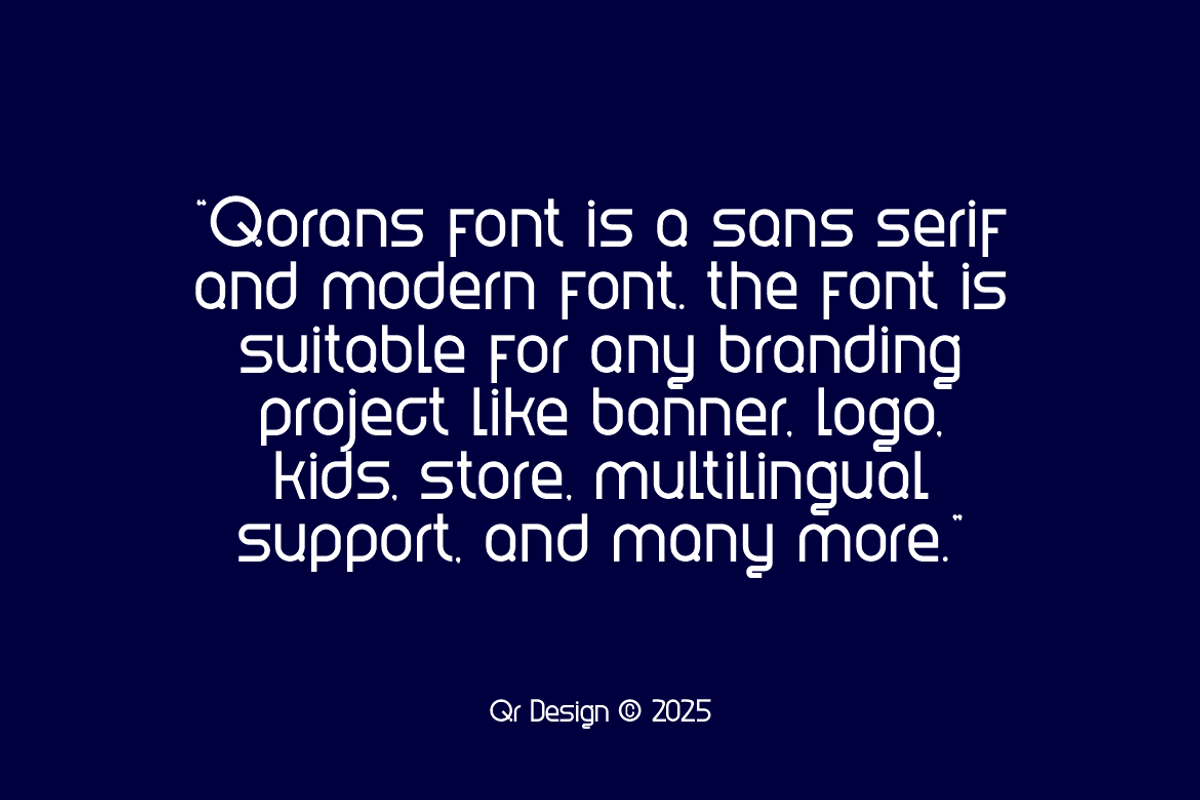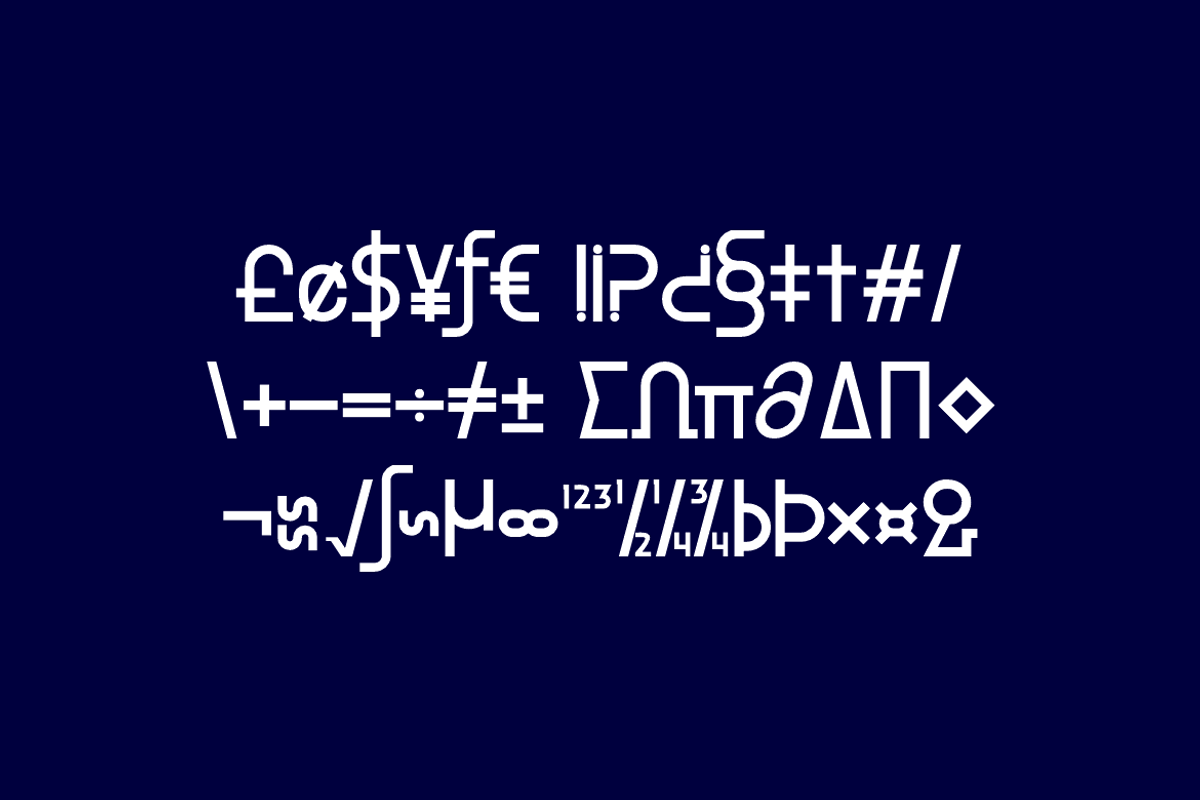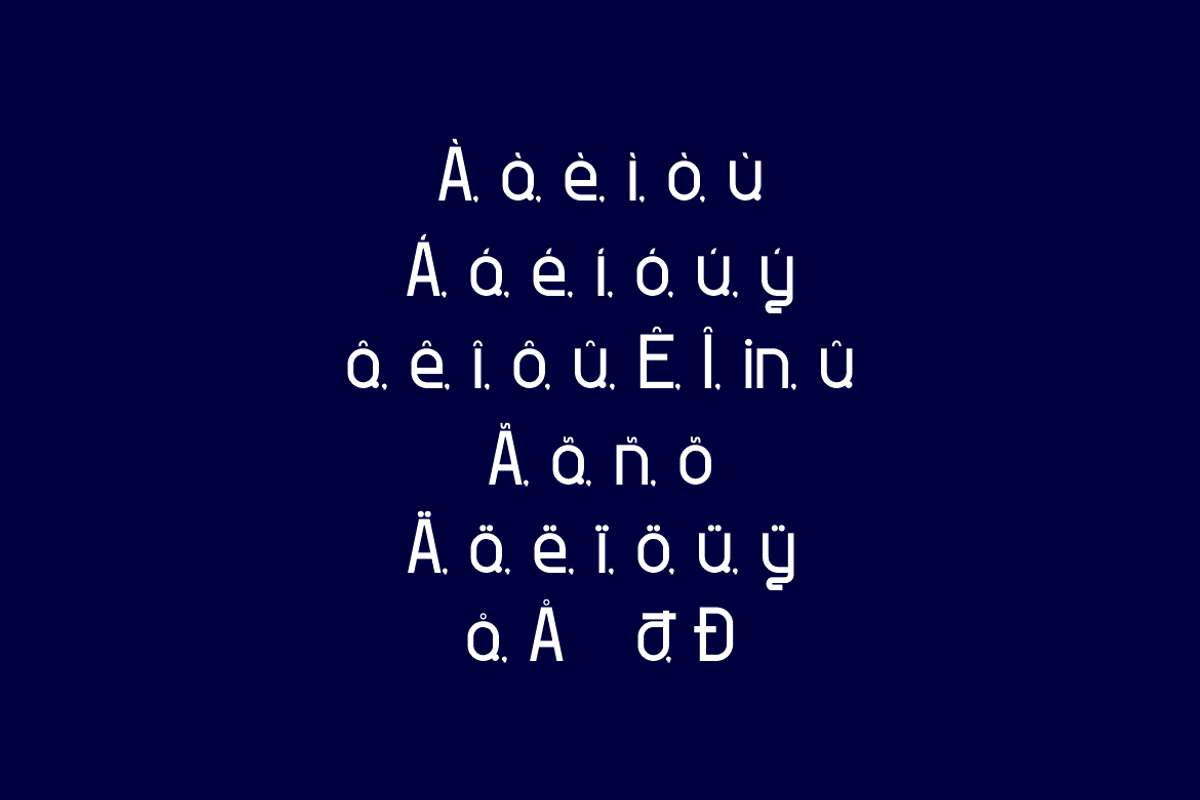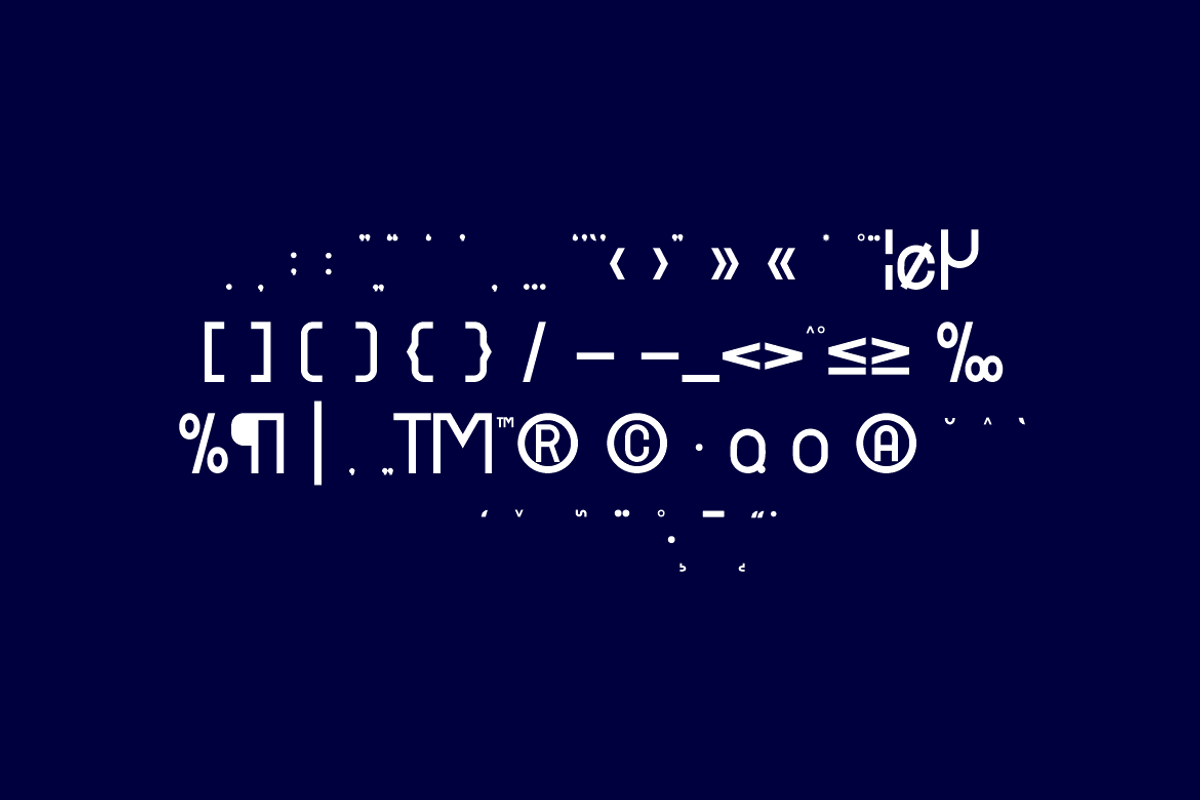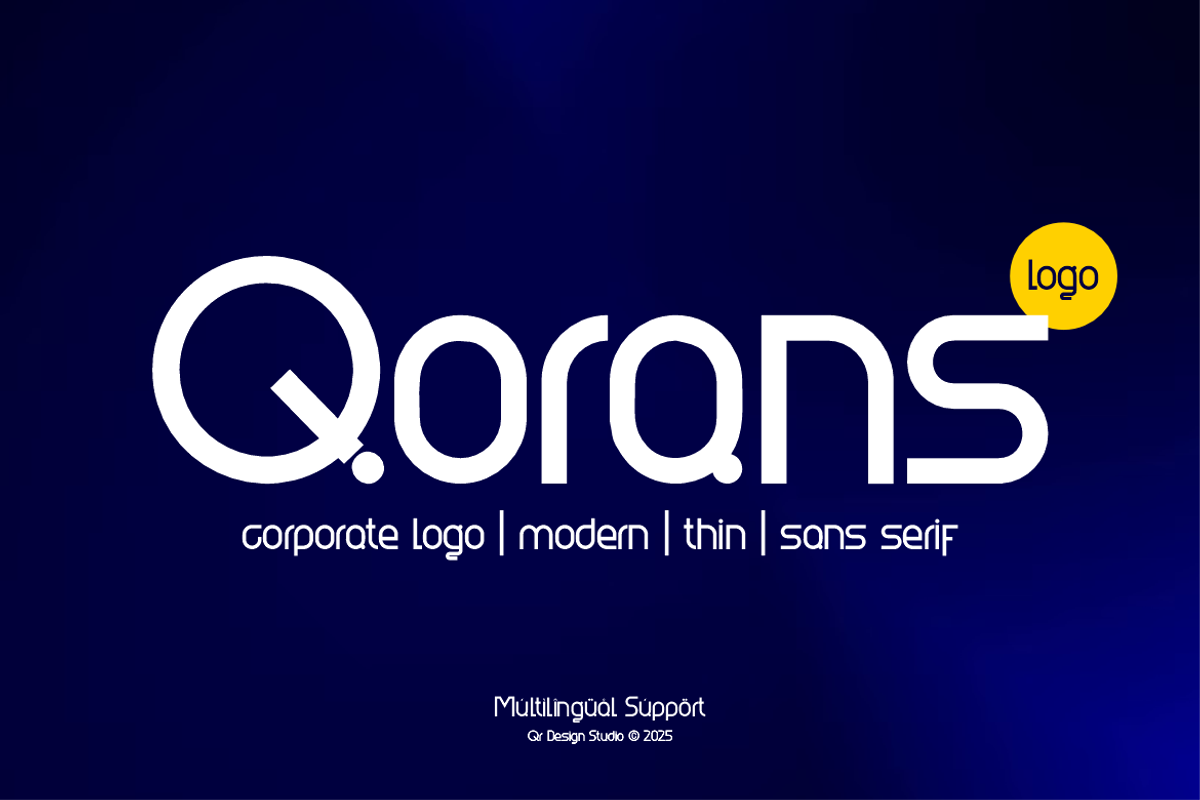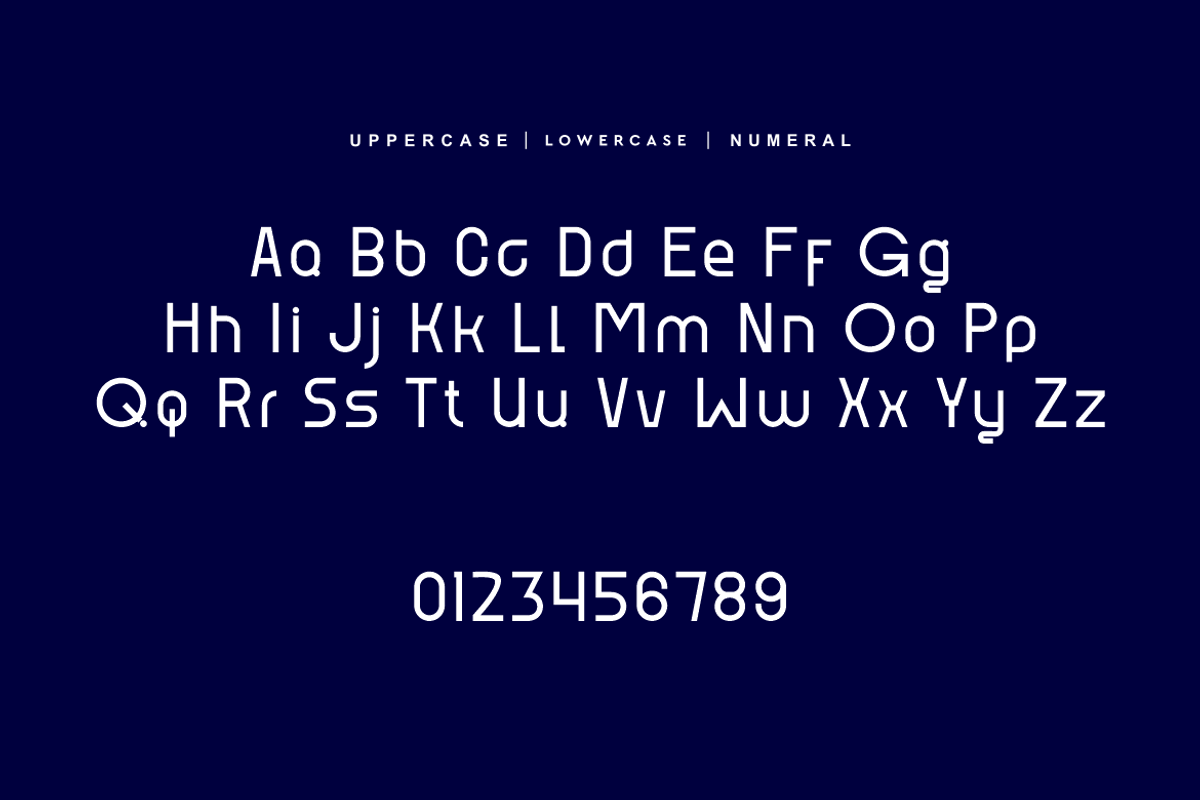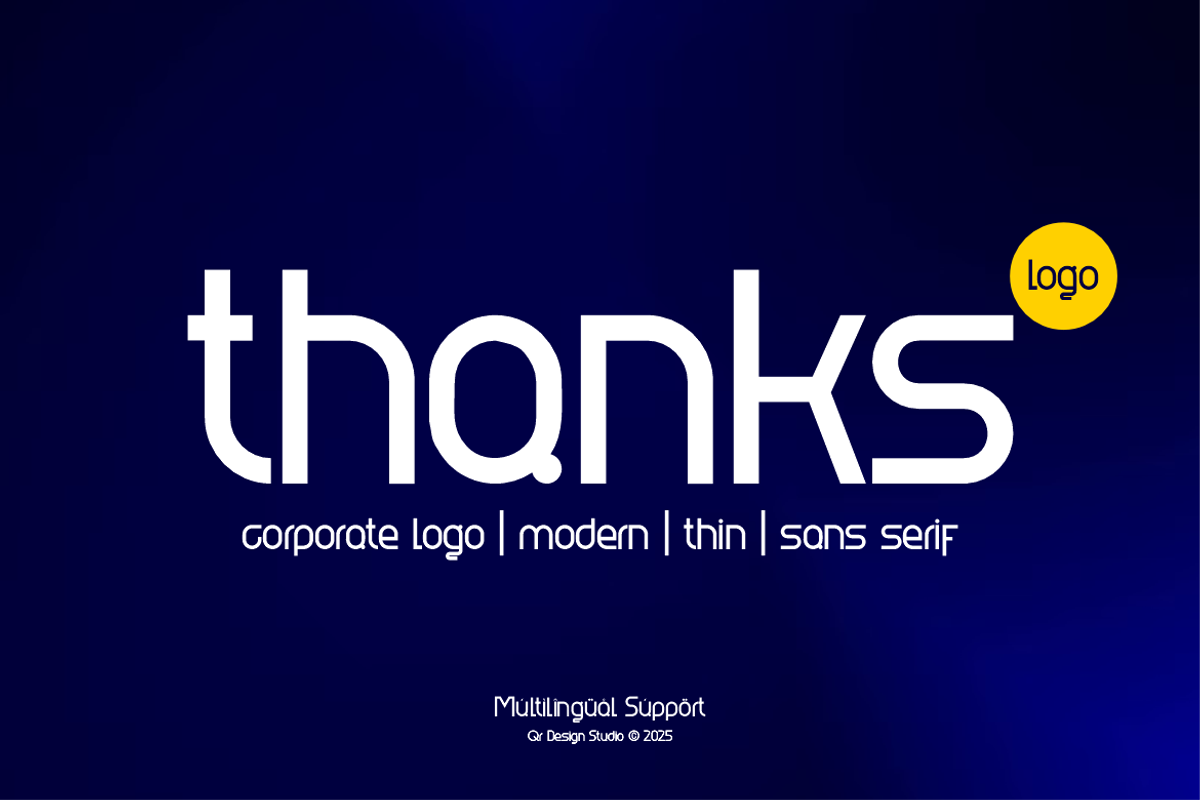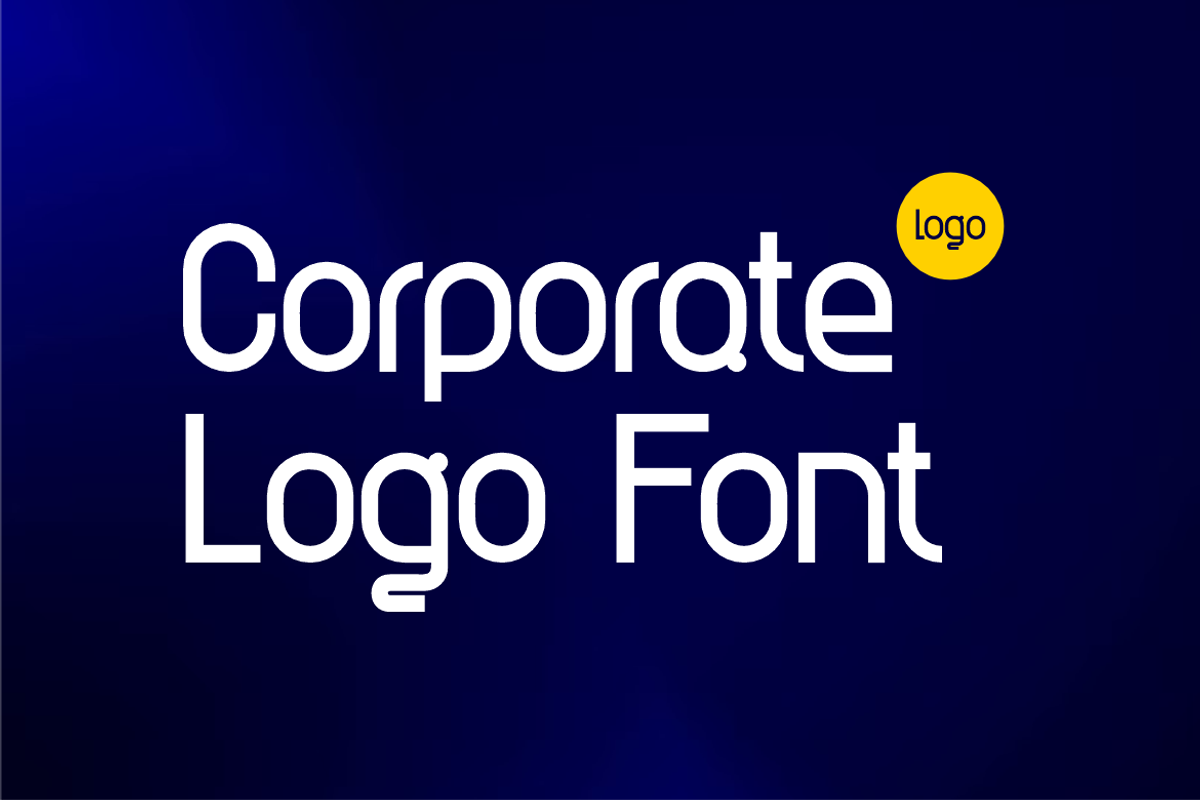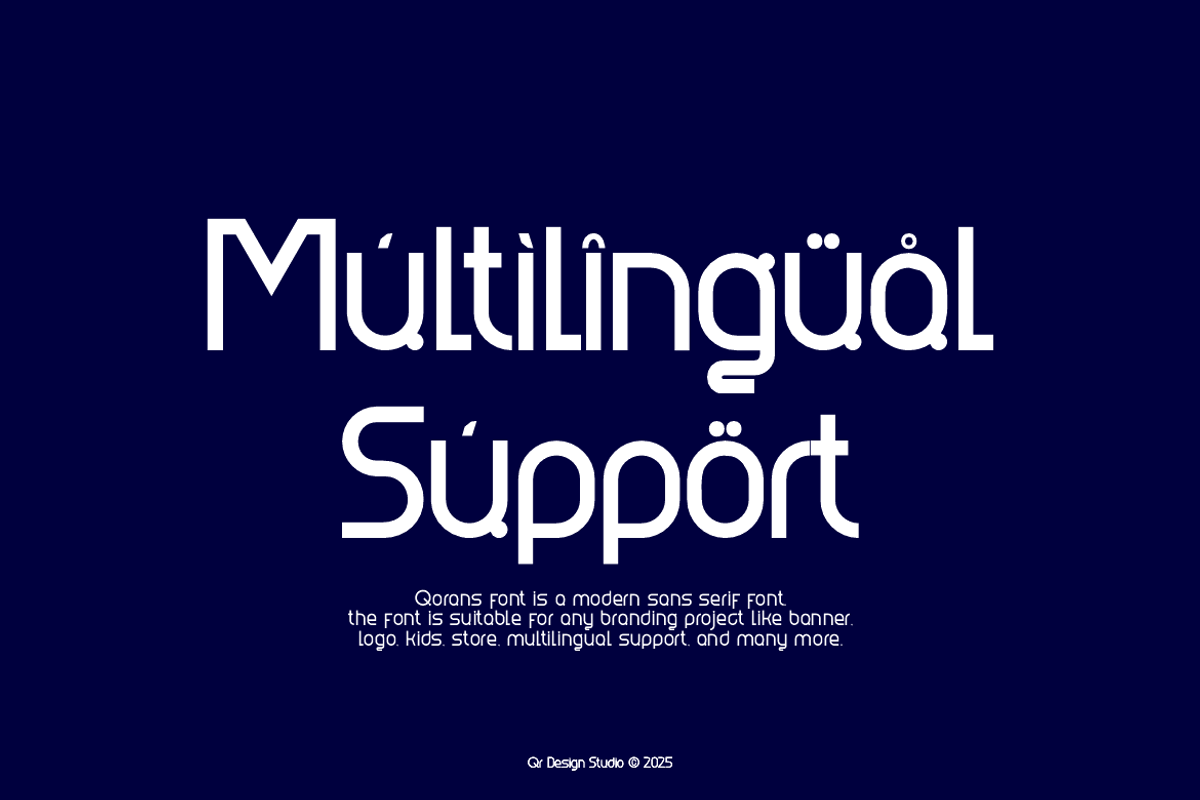
Qorans - Corporate Logo Font
Qorans Font is a bold and authentic display font. The font is suitable for any branding project like poster, logo, sport, and many more. Outstanding in a wide range of contexts.